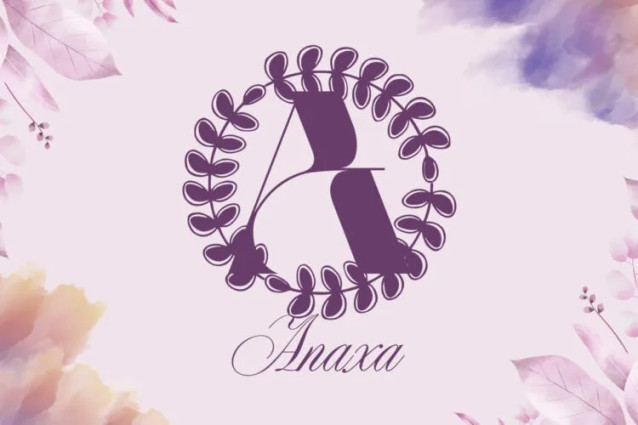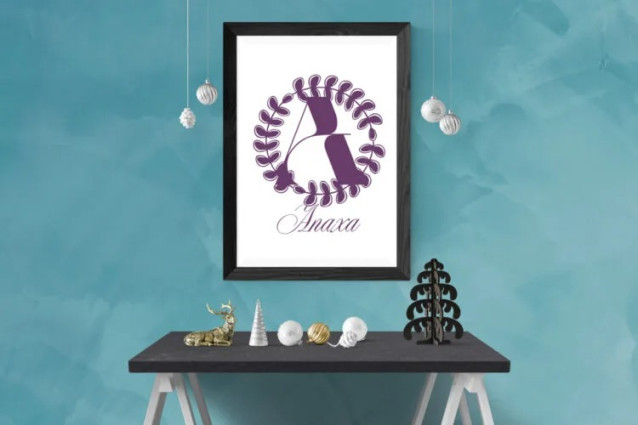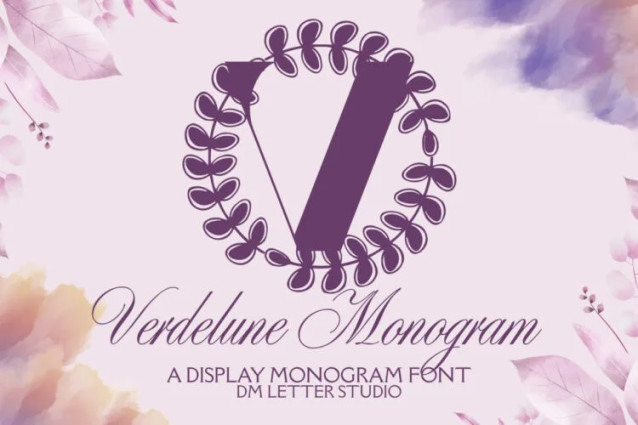
Verdelune Monogram Font
Verdelune Monogram Font turns simple initials into soft botanical emblems with a calm, moonlit elegance. The strokes are smooth and balanced, so letters stay clear at any size. Because counters remain open, tiny tags print crisp while large signage looks polished and premium. Use it for wedding suites, boutique logos, keepsake gifts, wax seals, stationery, and luxury packaging. As a result, your designs feel natural, refined, and gift-ready right away.
Fast layouts with the Verdelune Monogram Font
Start with a generous initial and let white space breathe. After that, add names, dates, or short titles in a simple supporting font. Because Verdelune holds shape at small sizes, cards, cartons, acrylic signs, and tags print beautifully. In addition, the proportions pair well with wreath frames, oval borders, thin dividers, and subtle foliage accents, so full sets come together in minutes. Finally, save palette pairs like sage & ivory, eucalyptus & cream, champagne & charcoal, or navy & pearl to repeat across product lines.